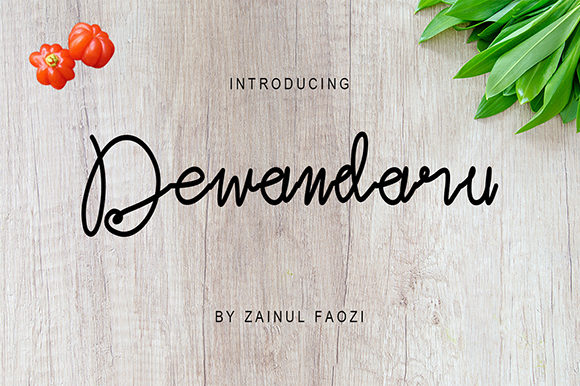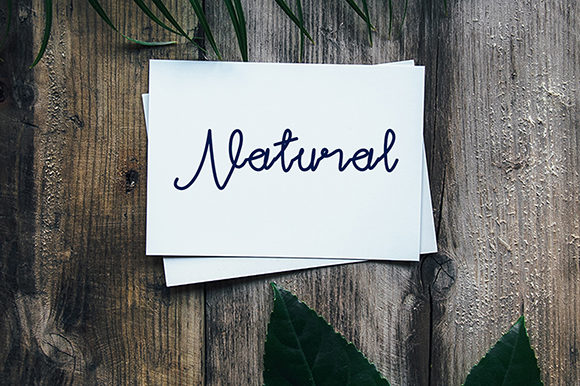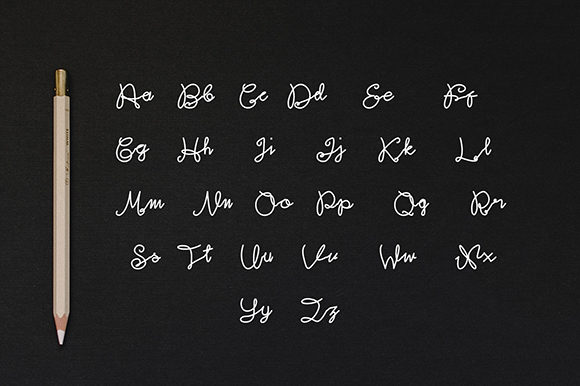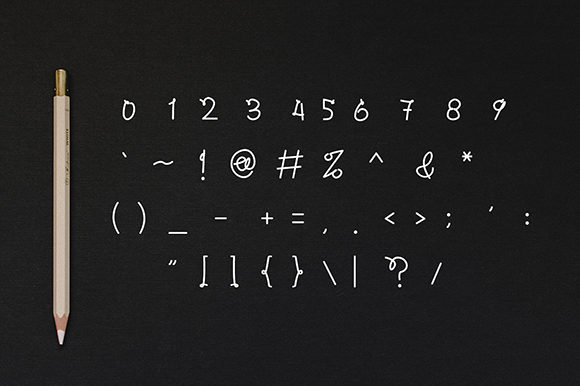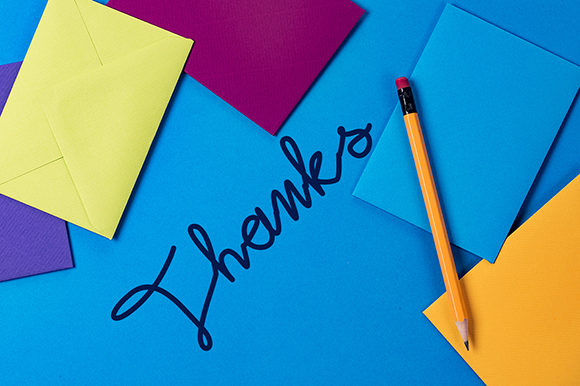
Dewandaru Font
About Dewandaru Font
Dewandaru is a simple and fun handwritten font with a cool twist. It will add a casual charm to any creative project!